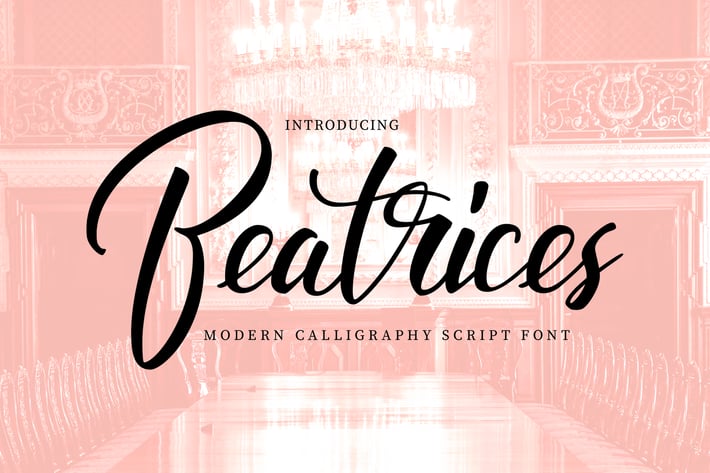
Beatrices | Modern Calligraphy Script Font
Beatrices | Modern Calligraphy Script Font with a calligraphy style, So beautiful on invitation like greeting cards, branding materials, business cards, quotes, posters, and more!